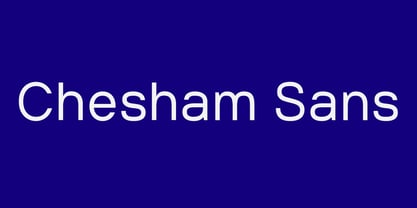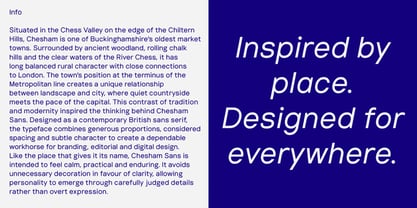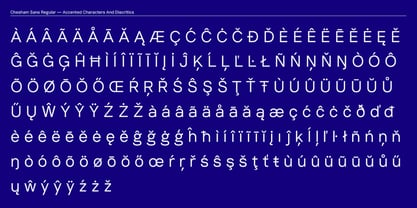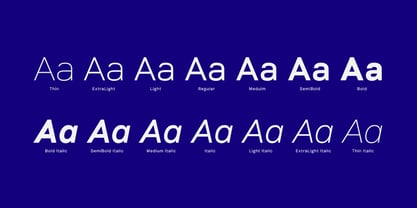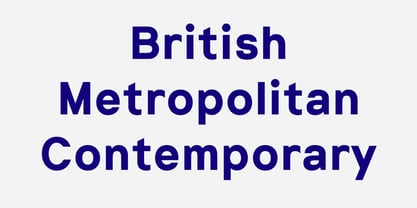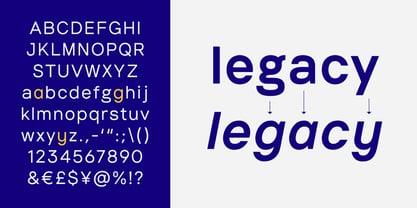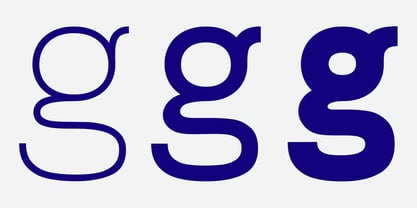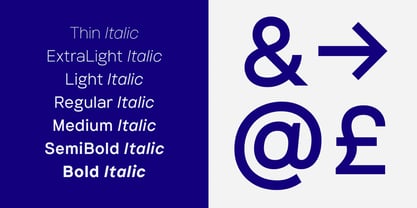
Chesham Sans
La familia tipográfica Chesham Sans fue diseñada por Jonathan Quainton y publicada por Quainton Type. Chesham Sans contiene 16 estilos y opciones de paquete familiar. Más información sobre esta familia
Chesham Sans is a contemporary sans serif typeface designed for clarity, versatility and longevity. Balancing generous proportions with a restrained rhythm, it is suited to editorial design, branding, digital interfaces, packaging, signage and everyday typography.
Rather than relying on fashionable details or overt personality, Chesham Sans focuses on consistency and refinement. Carefully considered spacing, subtle optical adjustments and balanced proportions create a calm, dependable texture across every weight, allowing the family to move naturally from immersive reading to confident display settings.
The family includes seven weights with matching italics, providing a flexible typographic system for a wide range of applications. Extensive Latin language support, comprehensive OpenType features and carefully engineered production make Chesham Sans a reliable choice for professional designers working across both print and screen.
Developed in the Chiltern Hills of England, Chesham Sans reflects a measured approach to contemporary type design, favouring clarity, rhythm and durability over decoration. Designed to work quietly rather than demand attention, it is intended to become a dependable part of a designer's everyday toolkit.